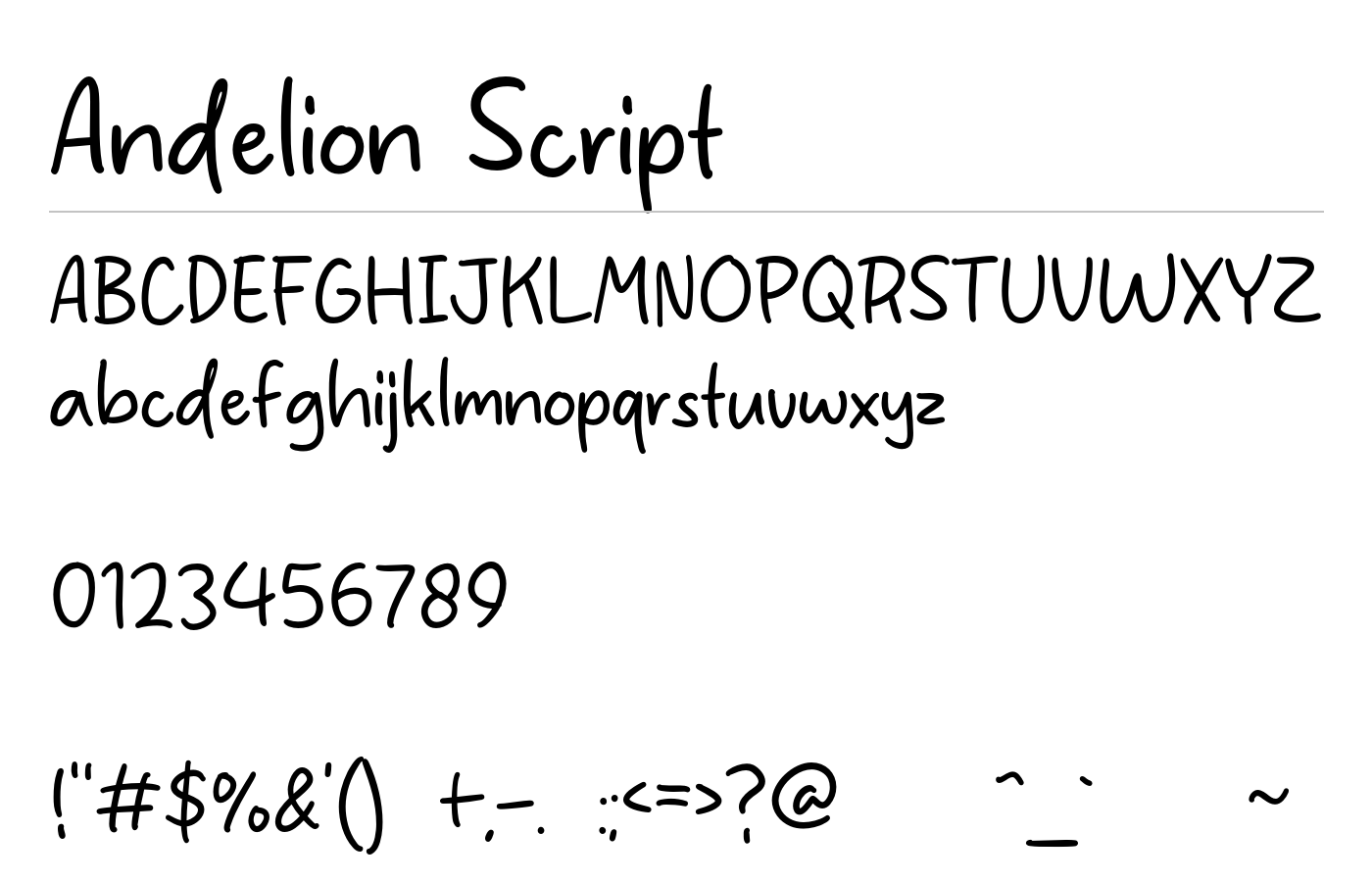
Andelion Script is a casual, handwritten sans serif font characterized by its light, slightly narrow strokes and playful, smooth curves. It conveys a friendly and approachable vibe with a natural, informal feel, making it ideal for creative projects, personal branding, and casual communication. Its clear legibility and lively personality work well for social media graphics, invitations, and youthful branding that seek a warm, human touch.
Andelion Script Font
About Andelion Script Font